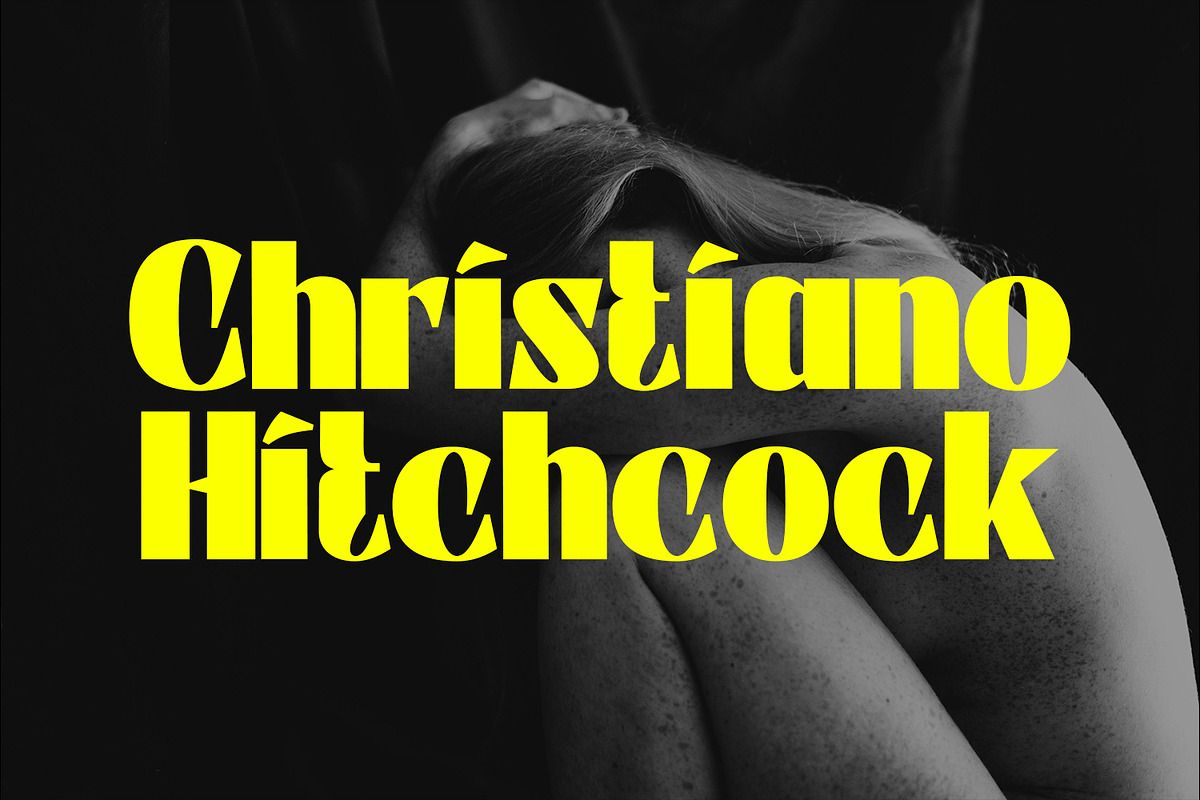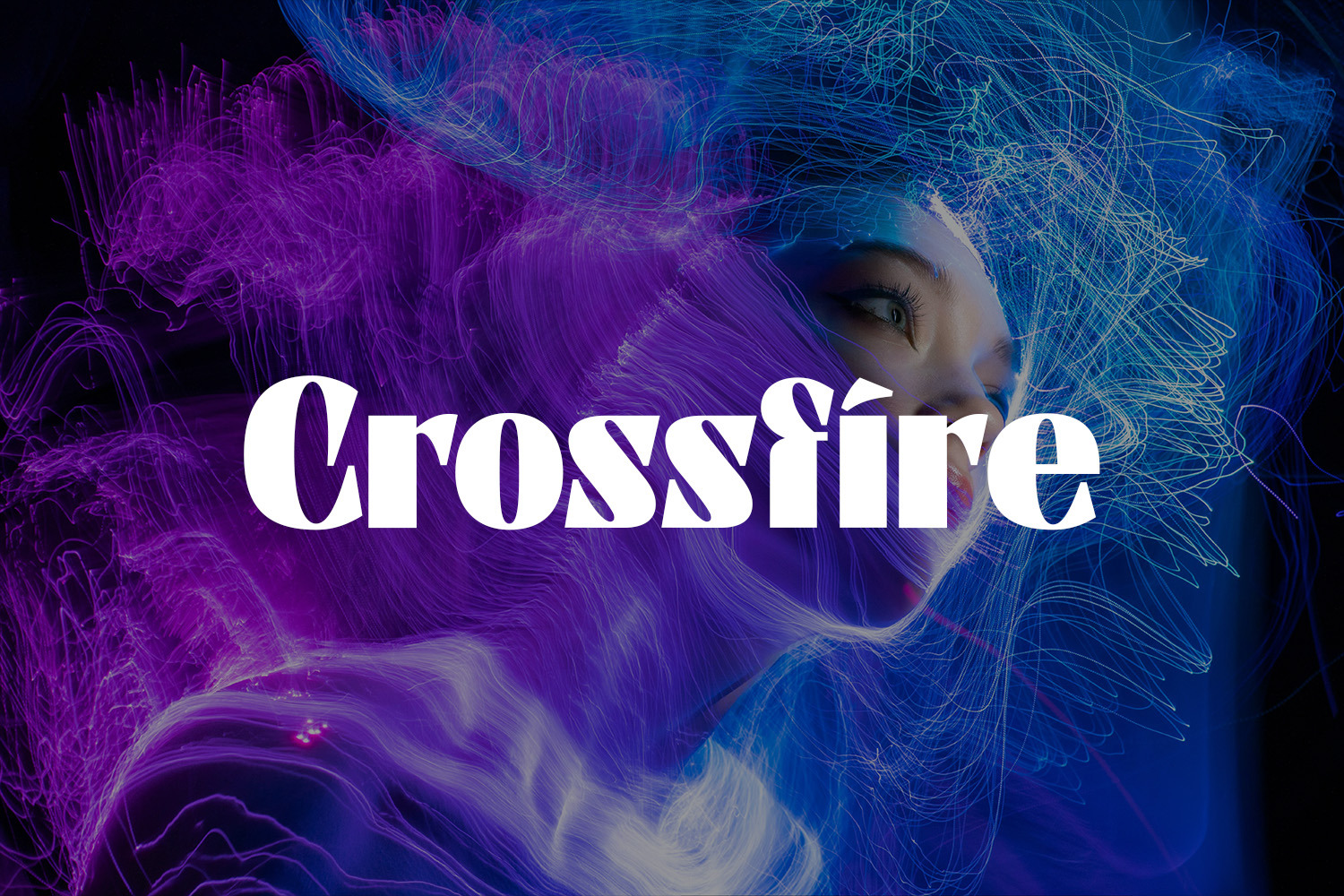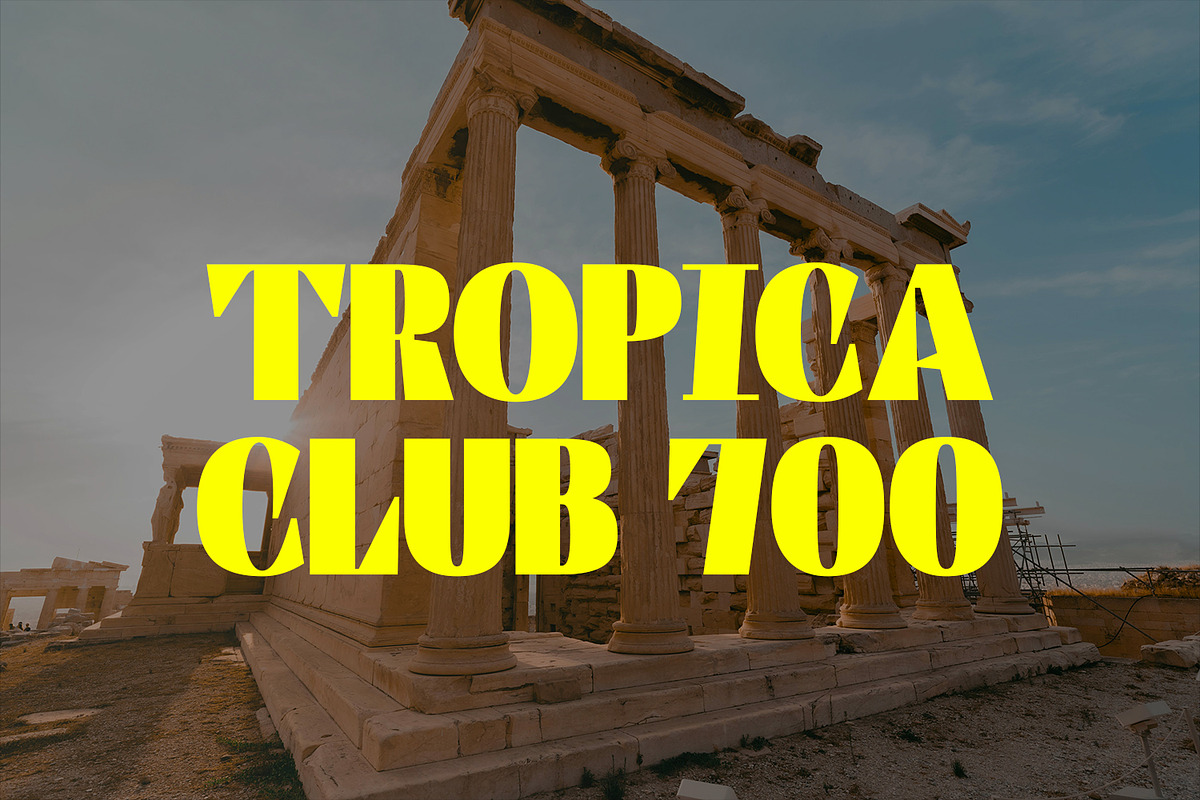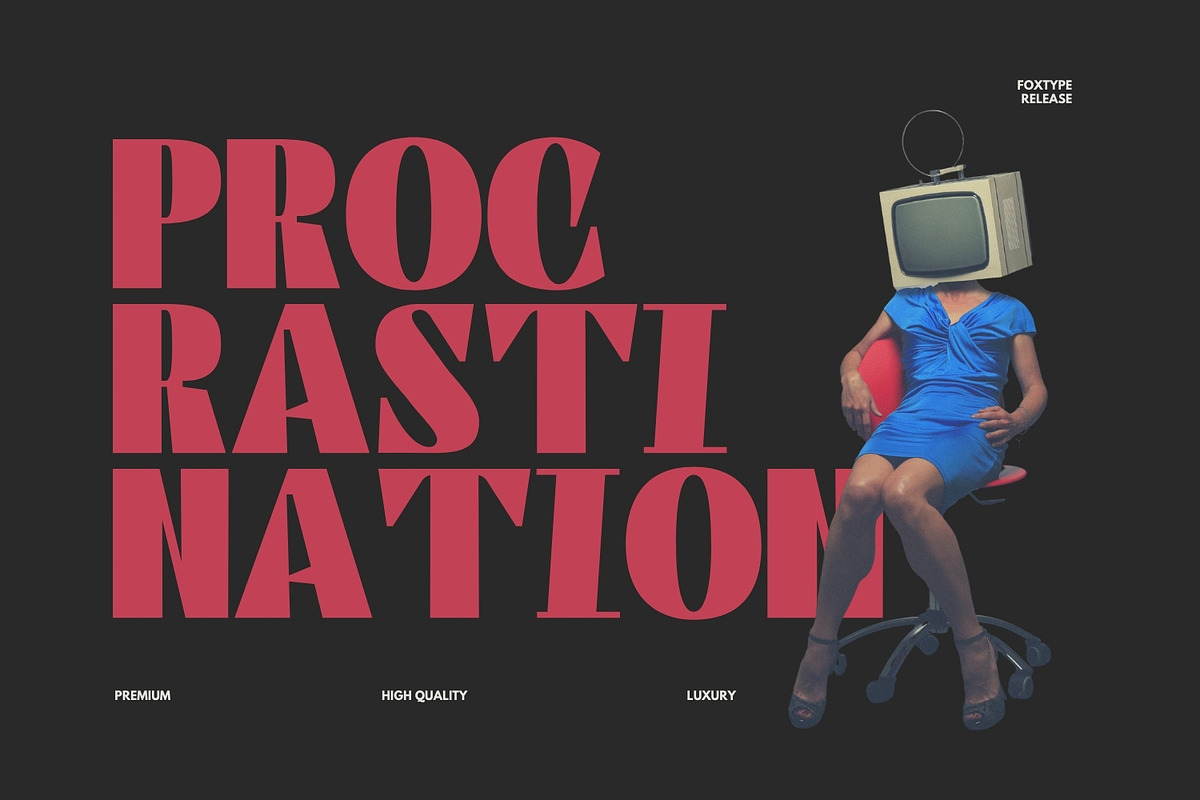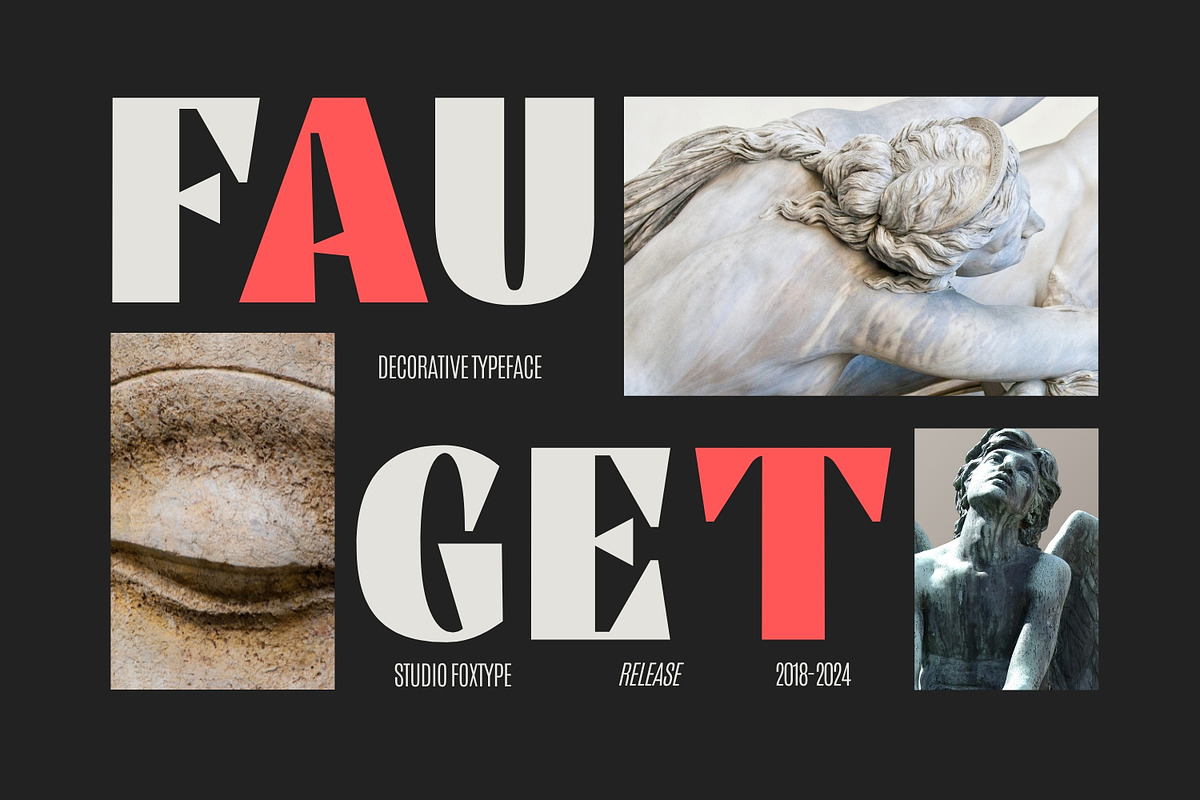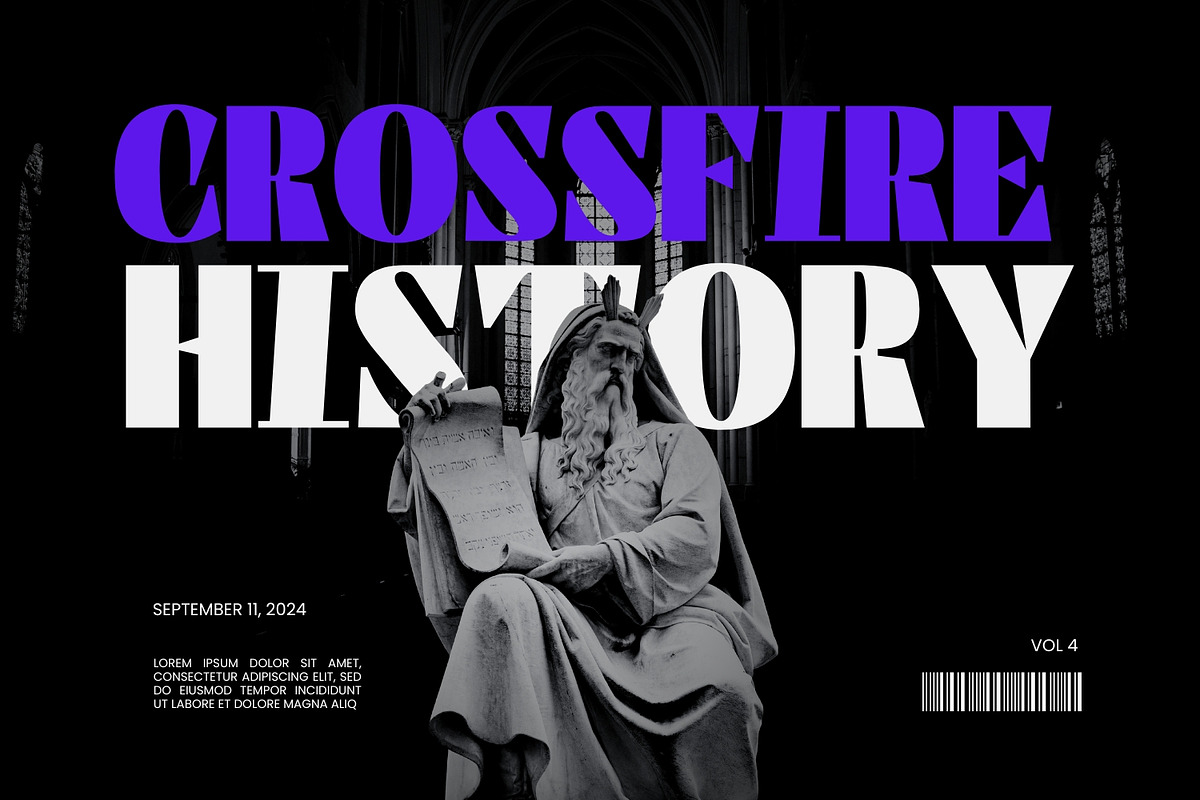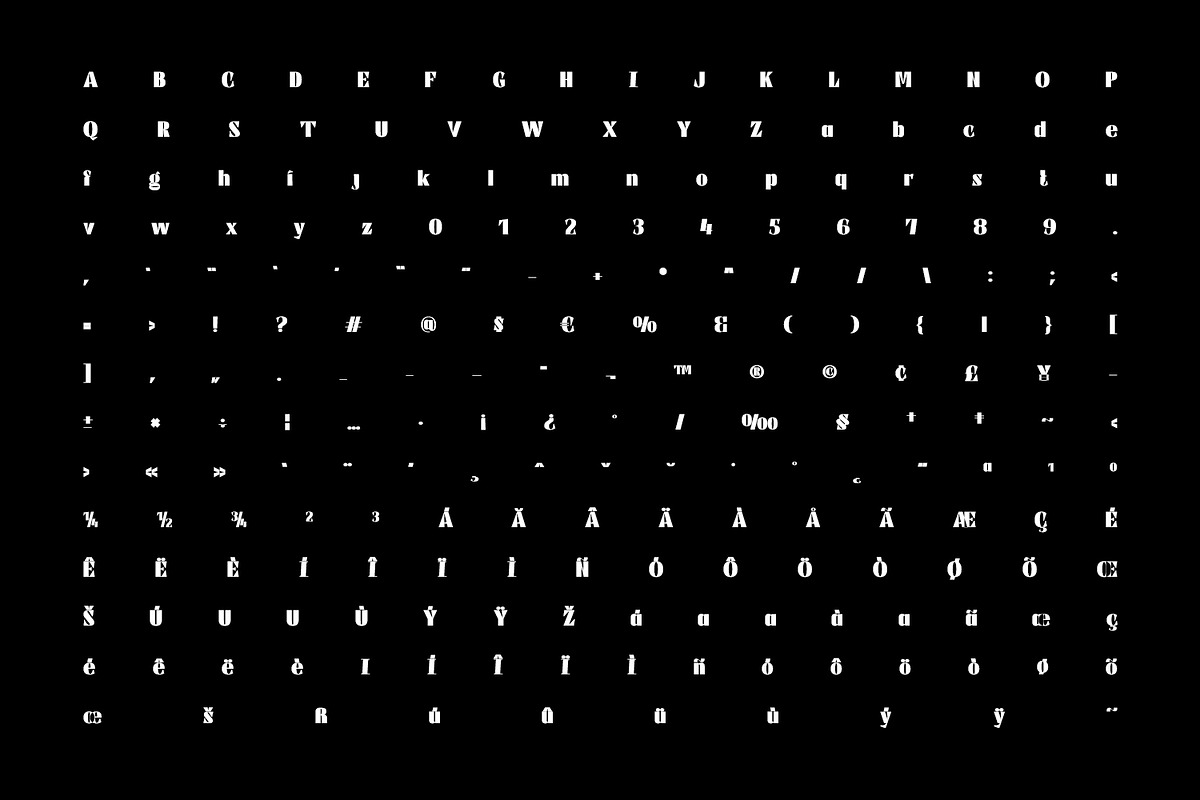
Crossfire Branding Typeface
Crossfire Display is a meticulously crafted font, designed to make a bold statement in your creative projects. Ideal for posters, magazine covers, headlines, Logo, Branding and more, this font brings a modern and dynamic touch to any design.
Neat and Precise: Each character is carefully designed to ensure clarity and visual appeal. Versatile Usage: Perfect for creating eye-catching posters, striking magazine covers, and attention-grabbing headlines. Multiple Formats: Available in TTF, OTF, WOFF, and WOFF2, EOT. Transform your branding designs with the distinctive style of Crossfire Display Typeface, a font that combines elegance and impact seamlessly.